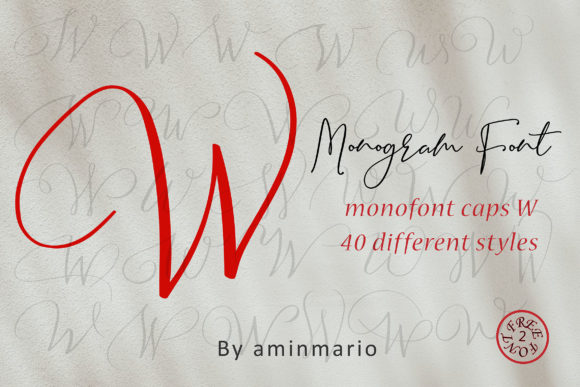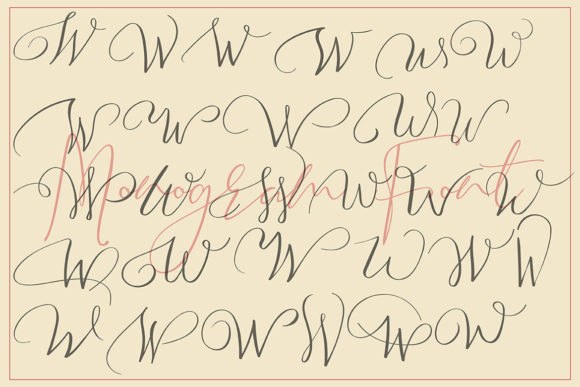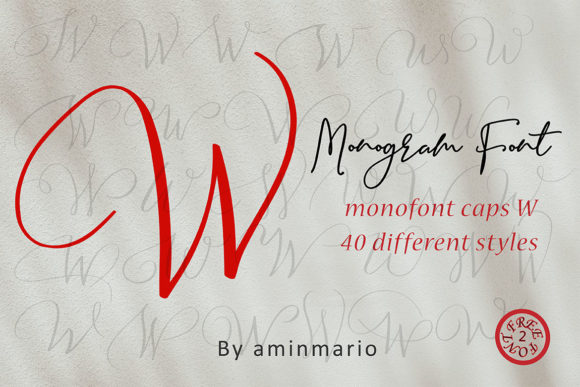
Monogram W | Monofont Caps W Font
About Monogram W | Monofont Caps W Font
This MONOGRAM is natural handwriting of capital W with 36 different styles.
This is not for writing words or sentences, but for monograms. Bonus 2 Font that contains the uppercase and lowercase to support it.